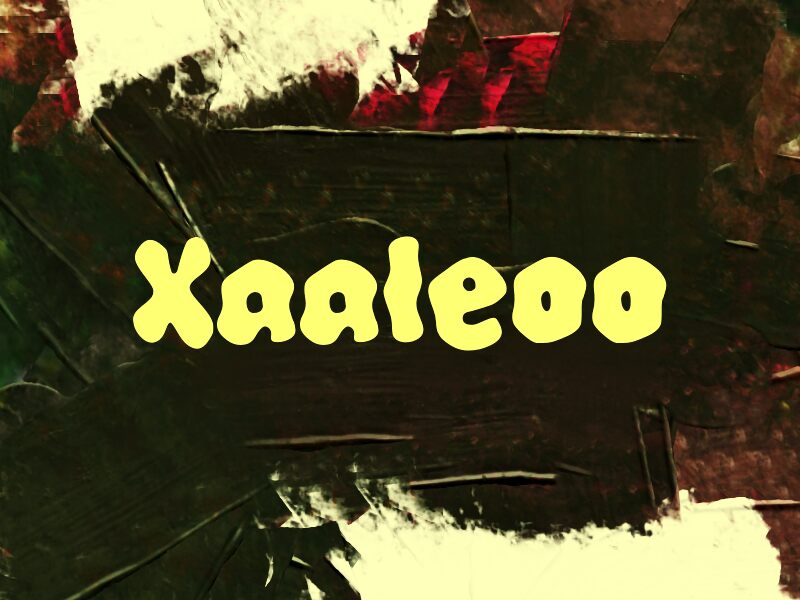
Xaaleoo
Xaaleoo font by wepfont.com is a free groovy display typeface with letters that look like they’ve been poured rather than drawn. Each character feels soft and blobby, with rounded silhouettes that wobble just enough to feel playful without turning messy. The tight rhythm and chunky shapes create a strong, inky silhouette that jumps off light or bright backgrounds and instantly sets a fun, offbeat mood.
Using Xaaleoo, your text feels like it’s made of slime, candy, or puff paint—great for kids’ branding, party posters, stickers, YouTube thumbnails, game titles, and quirky merch. This free font shines at large sizes where its gooey details can really show. Pair Xaaleoo with a clean, narrow sans serif in small text to keep layouts readable while letting the groovy forms steal the spotlight.